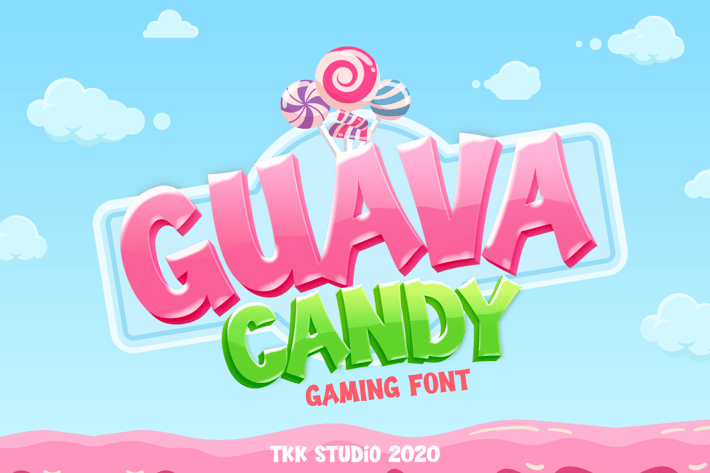
Guava Candy - Kids Gaming Font
Guava Candy is a playful, bold, and bouncy display font with soft rounded edges and high-impact proportion—designed to capture the visual energy of a candy store explosion. Its geometric base and smooth curves give it a youthful charm, while the chunky weight makes every letter pop with sugar-sweet confidence. Built for fun, food, and family-friendly branding, this font thrives in colorful contexts like game titles, snack packaging, kids YouTube thumbnails, and playful product launches.
From “Buy 1 Get 1” splash banners to “Sweet Adventure” game intros, Guava Candy delivers high-impact visuals with a joyful, indulgent twist. Perfect for candy-themed ads, kid-focused mobile games, storefront signage, or limited-time offers, this typeface turns every headline into a treat. Whether you're a product designer, children’s illustrator, or content creator, Guava Candy offers the playful tone and visual pop needed to grab attention and deliver delight.
Bold, Chunky Style
- Rounded, thick shapes that feel fun, friendly, and approachable—ideal for high-energy campaigns.
Built for Gaming & Merch
- Crafted with kid appeal in mind, it shines in colorful games, playful branding, and product labels.
Sweet & Promotional
- Great for marketing candy, desserts, seasonal packaging, and food-based mobile apps or stores.
Readable Yet Expressive
While decorative, the structure remains highly legible, making it usable in both print and screen designs.
- Basic latin A-Z and a-z
- Numbers
- PUA Encoded Characters
Guava Candy is a playful, bold, and bouncy display font with soft rounded edges and high-impact proportion—designed to capture the visual energy of a candy store explosion. Its geometric base and smooth curves give it a youthful charm, while the chunky weight makes every letter pop with sugar-sweet confidence. Built for fun, food, and family-friendly branding, this font thrives in colorful contexts like game titles, snack packaging, kids YouTube thumbnails, and playful product launches.
From “Buy 1 Get 1” splash banners to “Sweet Adventure” game intros, Guava Candy delivers high-impact visuals with a joyful, indulgent twist. Perfect for candy-themed ads, kid-focused mobile games, storefront signage, or limited-time offers, this typeface turns every headline into a treat. Whether you're a product designer, children’s illustrator, or content creator, Guava Candy offers the playful tone and visual pop needed to grab attention and deliver delight.
Bold, Chunky Style
- Rounded, thick shapes that feel fun, friendly, and approachable—ideal for high-energy campaigns.
Built for Gaming & Merch
- Crafted with kid appeal in mind, it shines in colorful games, playful branding, and product labels.
Sweet & Promotional
- Great for marketing candy, desserts, seasonal packaging, and food-based mobile apps or stores.
Readable Yet Expressive
While decorative, the structure remains highly legible, making it usable in both print and screen designs.
- Basic latin A-Z and a-z
- Numbers
- PUA Encoded Characters